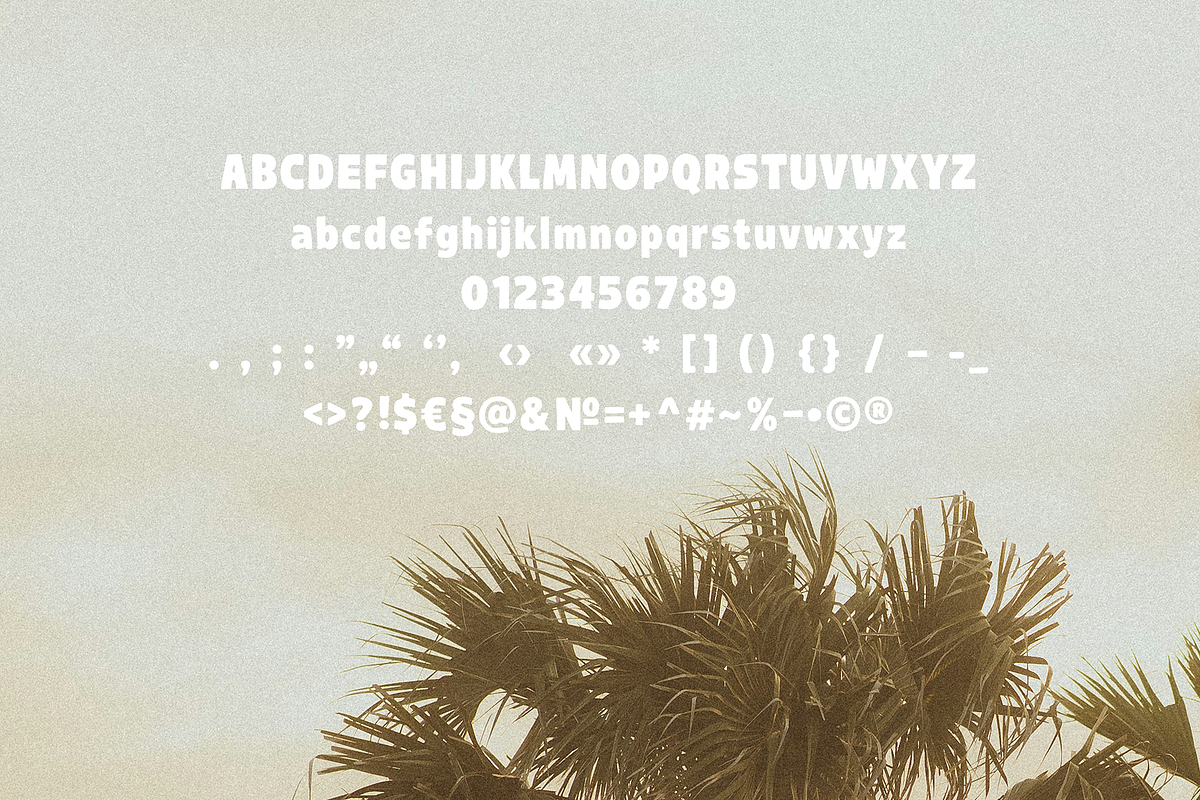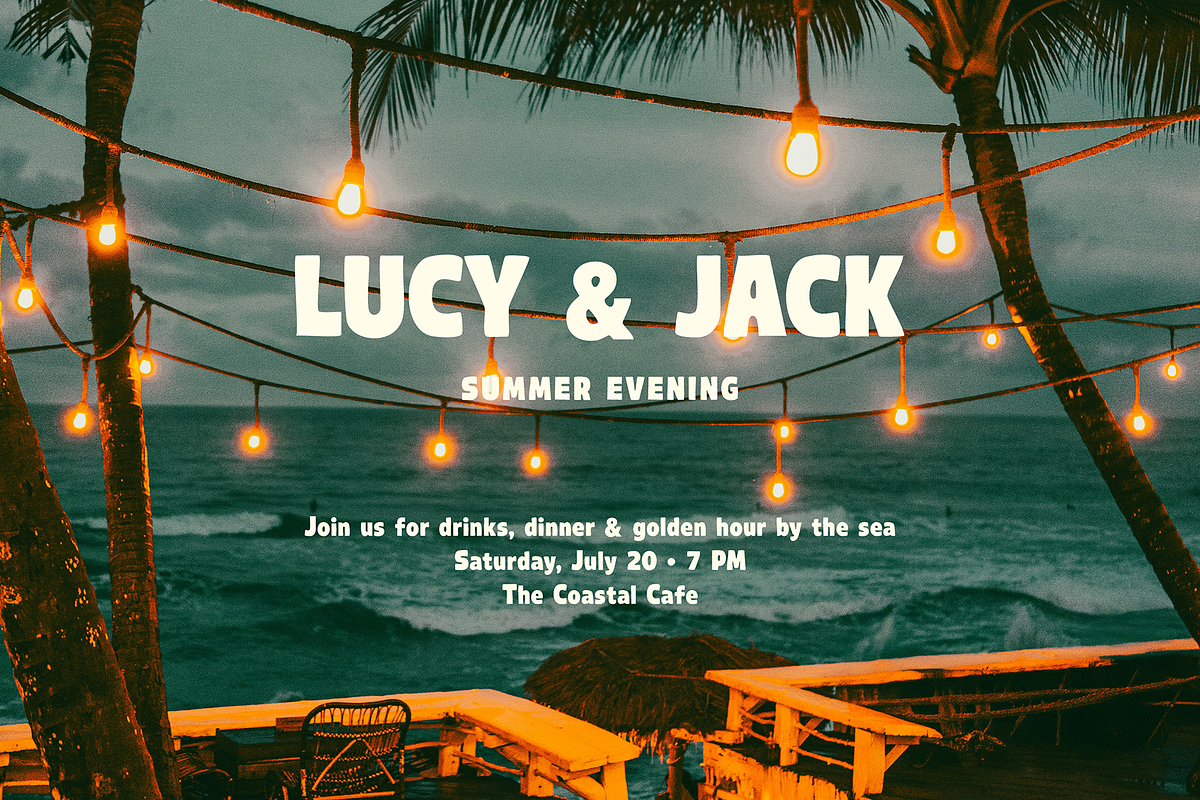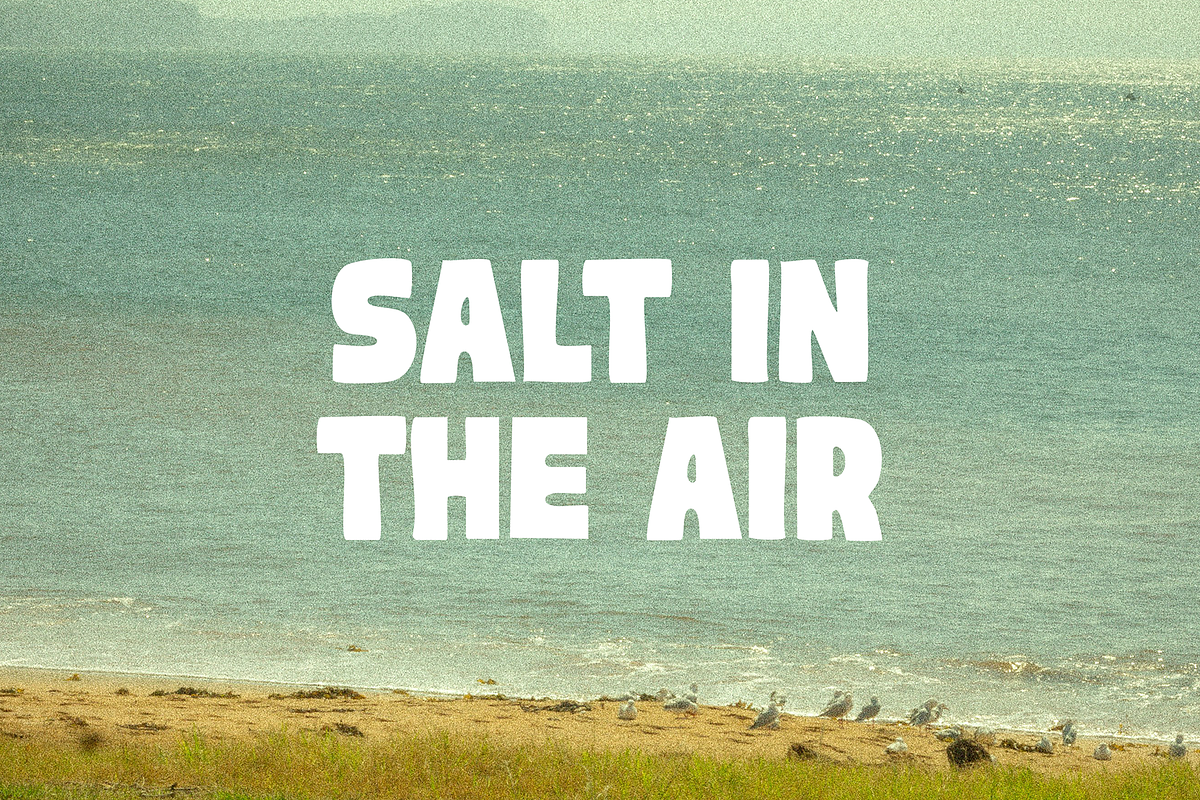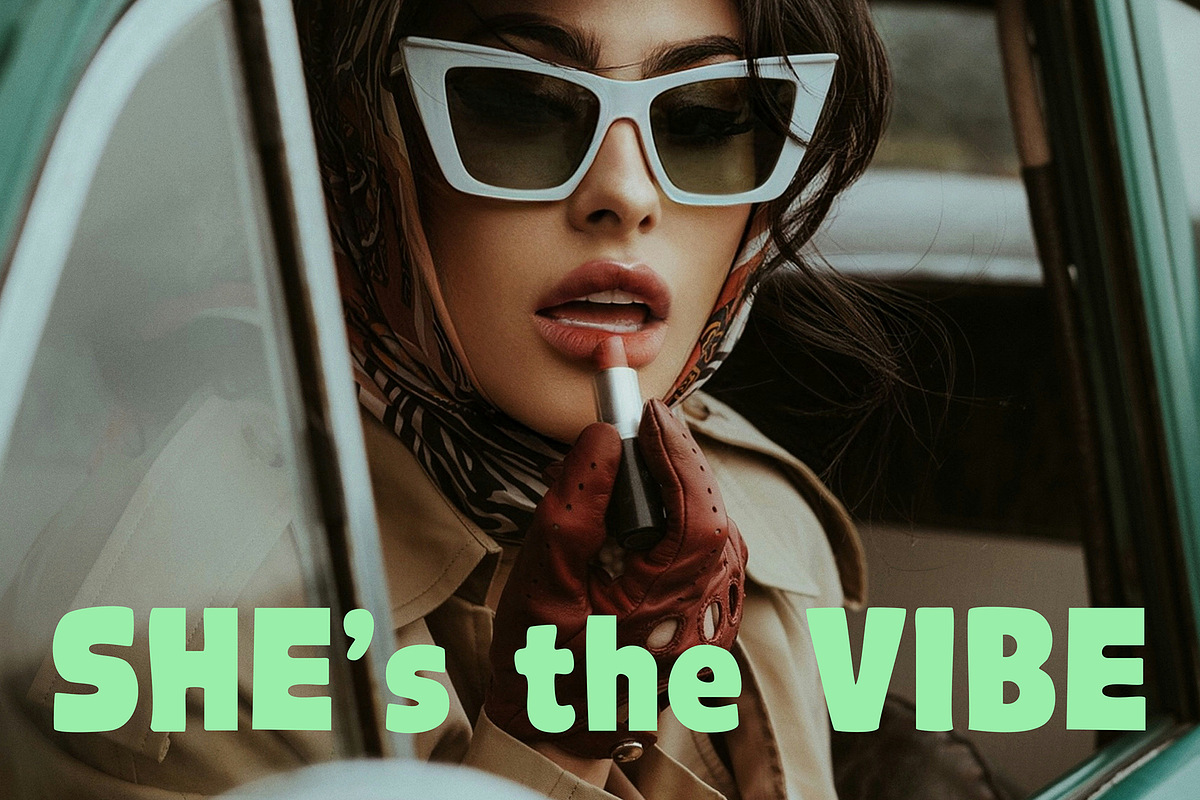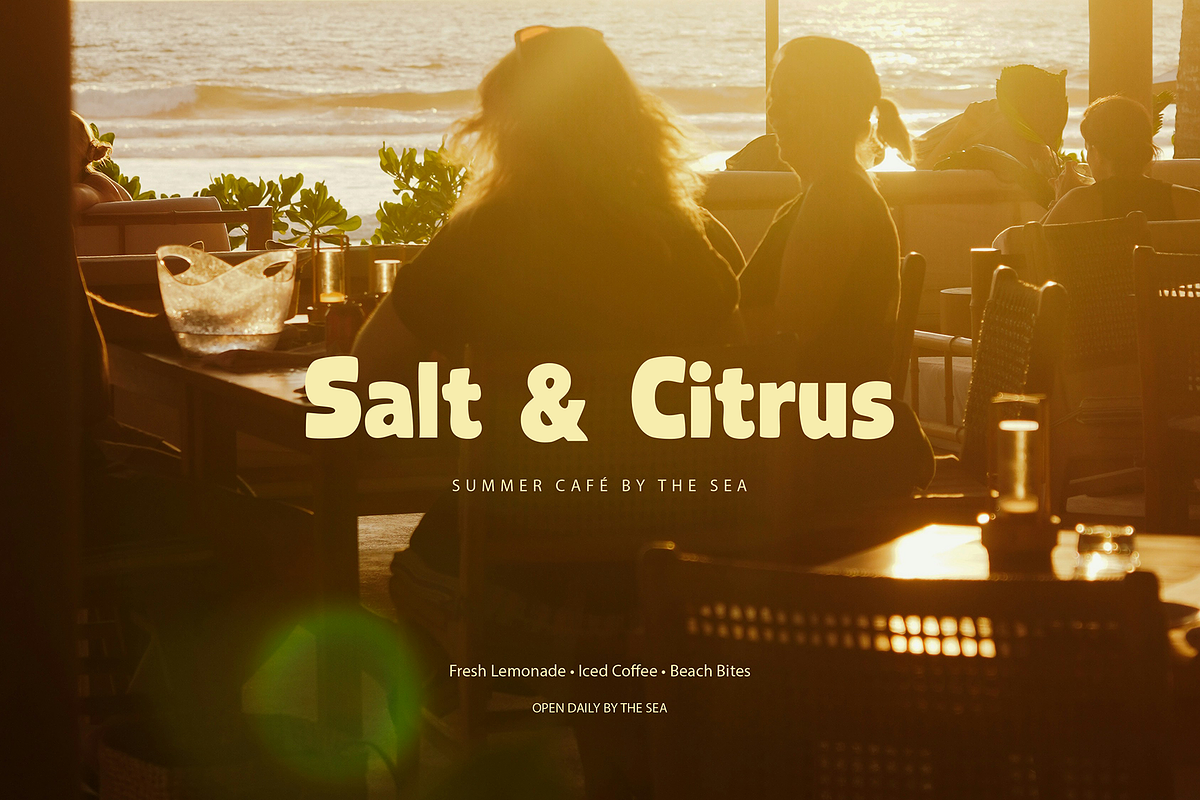
Sunbleach Bold Font
Sunbleach is a bold retro display font inspired by sun-faded beach posters, salty air, warm sand, and slow summer days by the sea.
With chunky letterforms, soft vintage character, and a relaxed handmade feel, Sunbleach is perfect for creating eye-catching designs with a coastal, nostalgic, and summer-inspired mood.